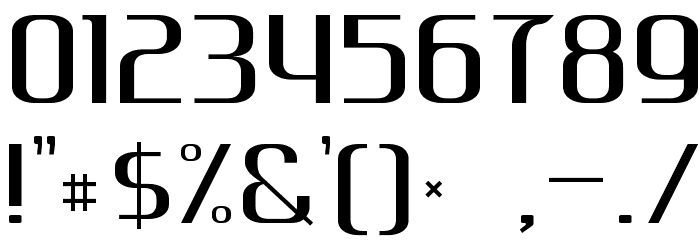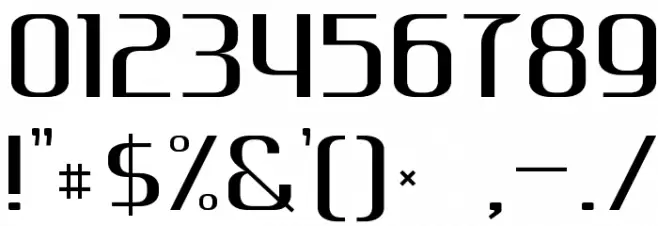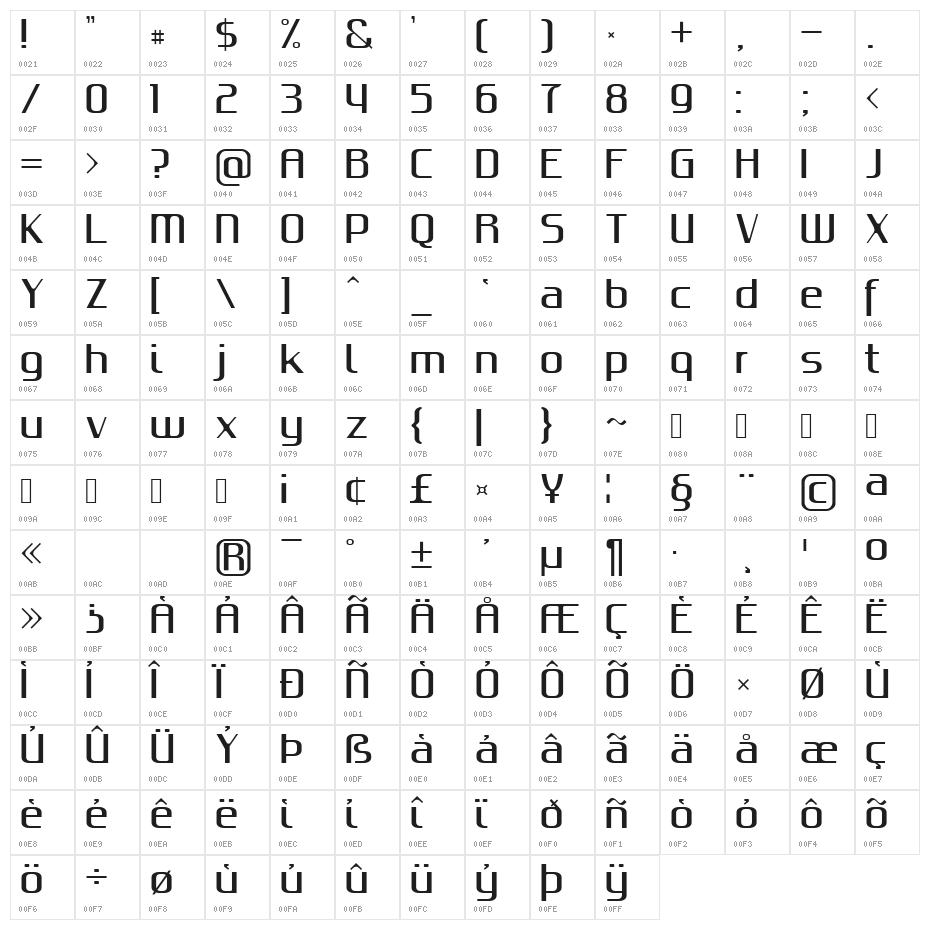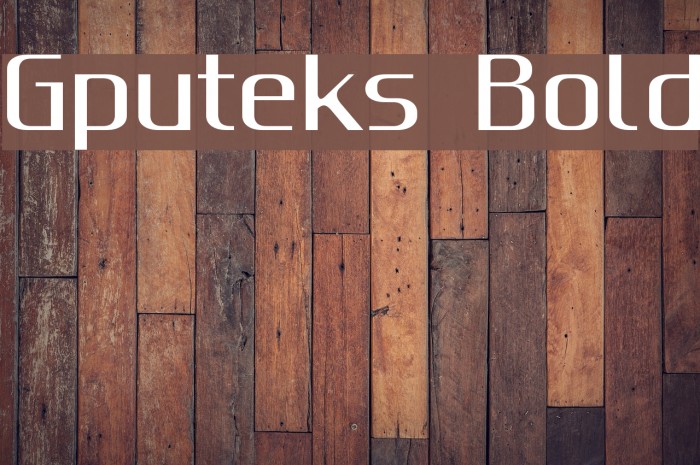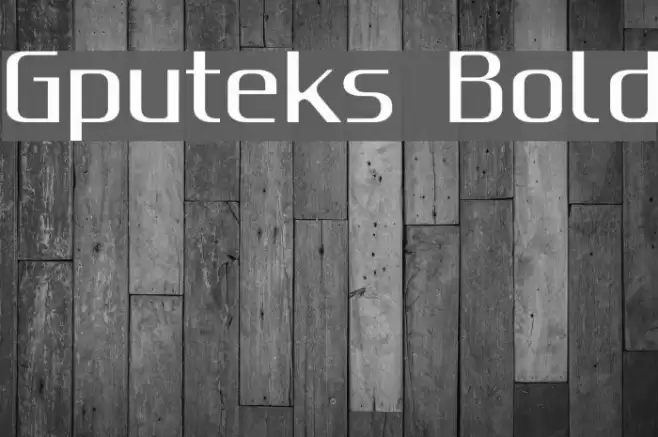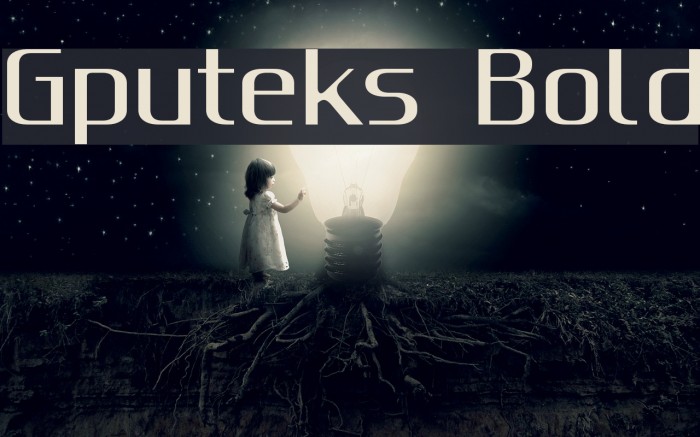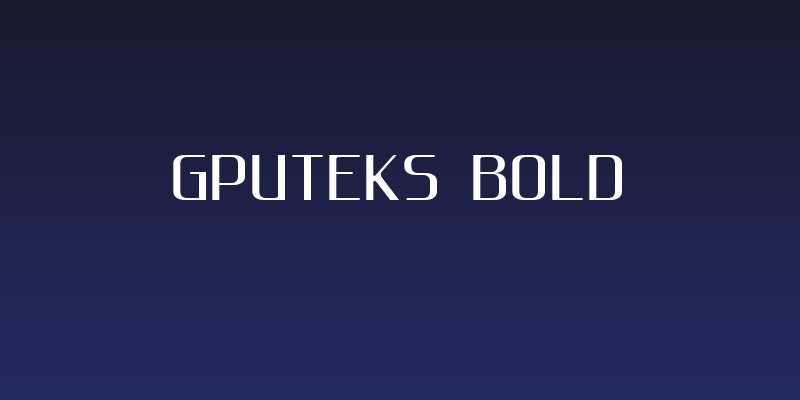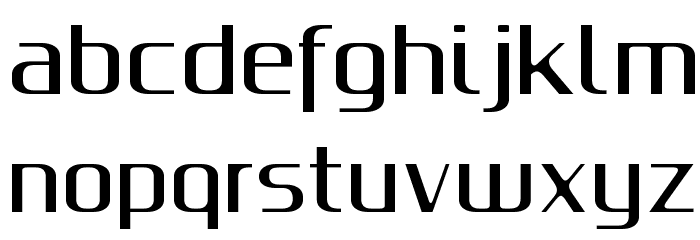
Gputeks Bold Font
Gputeks Bold Description
This font exhibits a modern and sleek design with a geometric structure. The characters are bold and have a consistent stroke width, giving them a strong presence. The uppercase letters are tall and slightly condensed, while the lowercase letters maintain a uniform height that complements the uppercase. The numerals are clear and distinct, matching the overall style of the alphabet. Special characters are included, maintaining the same bold and geometric aesthetic. This font is well-suited for projects that require a contemporary and professional look.
| Proposed Projects | Ideal for branding, advertising, headlines, and digital interfaces. |